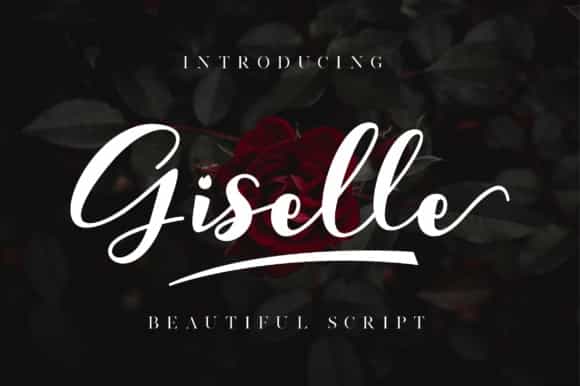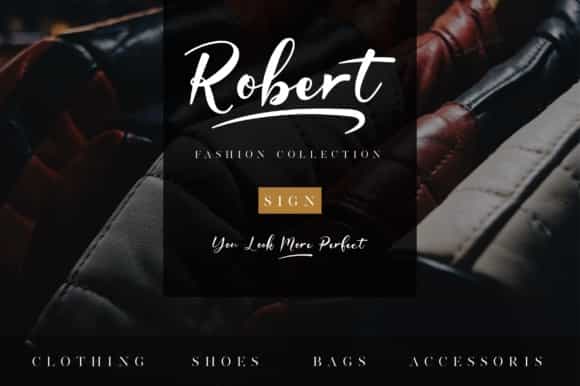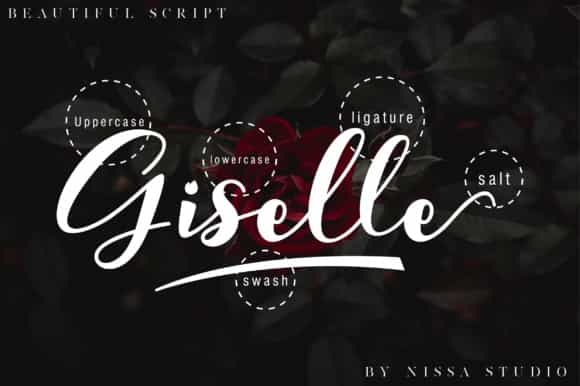
Giselle is a beautiful script font with a classy, elegant, and modern look which can be used for logos, branding, invitations, stationary, wedding designs, social media posts, etc., and all design needs an elegant, handwriting touch.